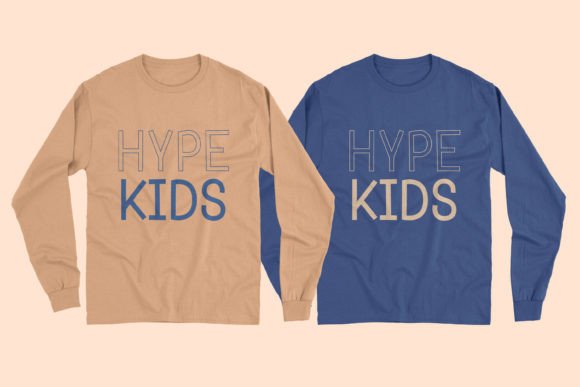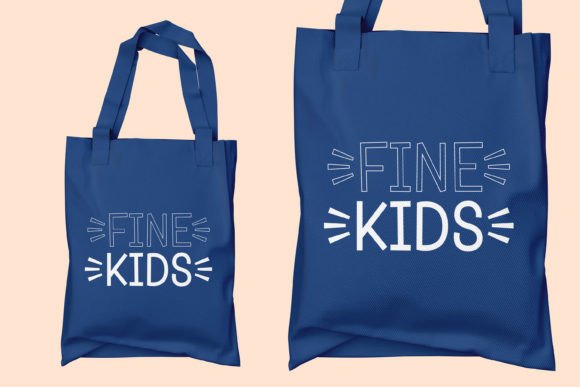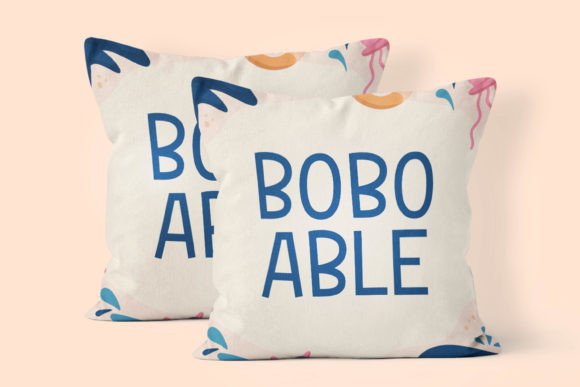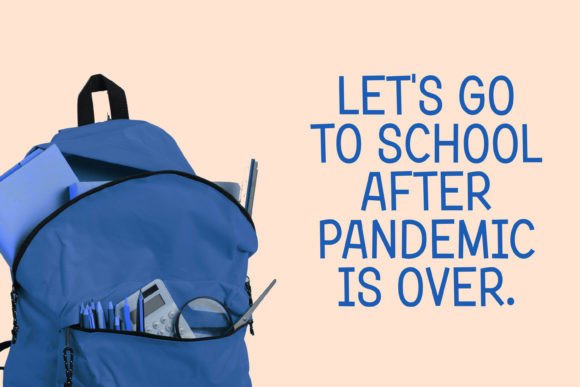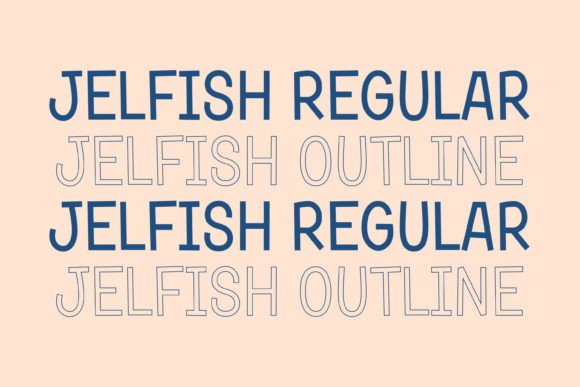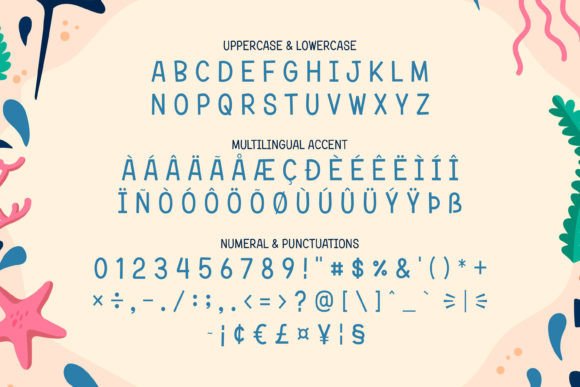
Introduction to Jelfish Font
Jelfish is a fun and playful sans serif font that perfectly matches a kid’s brand who wants to look different.
This font is a perfect match for design projects such as poster design, print ads, digital ads, headlines, t-shirts, crafts, and so on Go download it now.